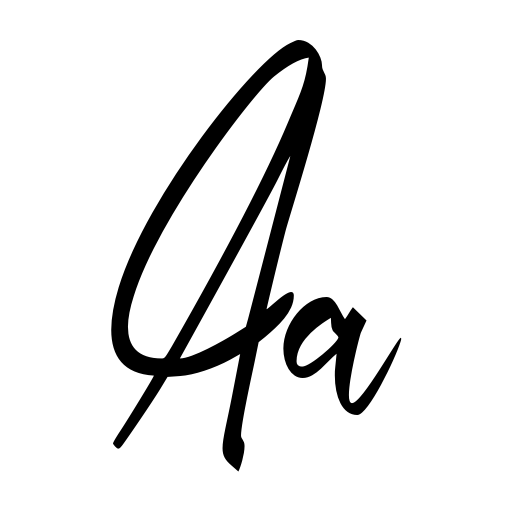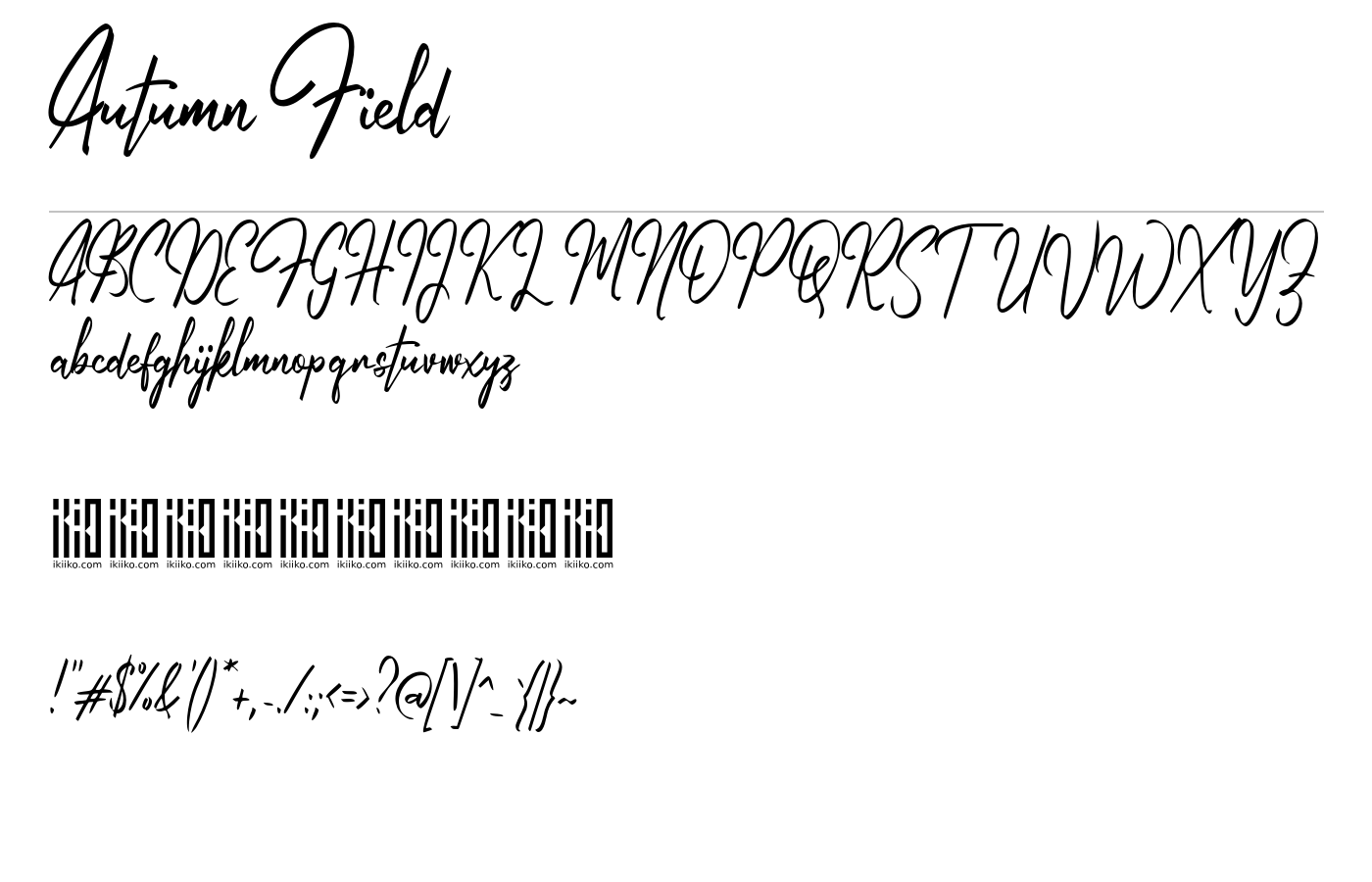
Autumn Field is a lively, handwritten script font with a slender, elegant style that combines smooth, flowing strokes with a slightly casual, personal touch. Its tall, narrow letterforms and high contrast in stroke weight give it an airy, graceful feel, making it ideal for branding, invitations, and creative projects that seek a refined yet approachable personality. This font works beautifully for logos and headlines where a touch of sophistication and warmth is desired.
Autumn Field Font
About Autumn Field Font
| Font family | Autumn Field Font |
| Designer | Wahyu Eka Prasetya, Andhika Pradana |